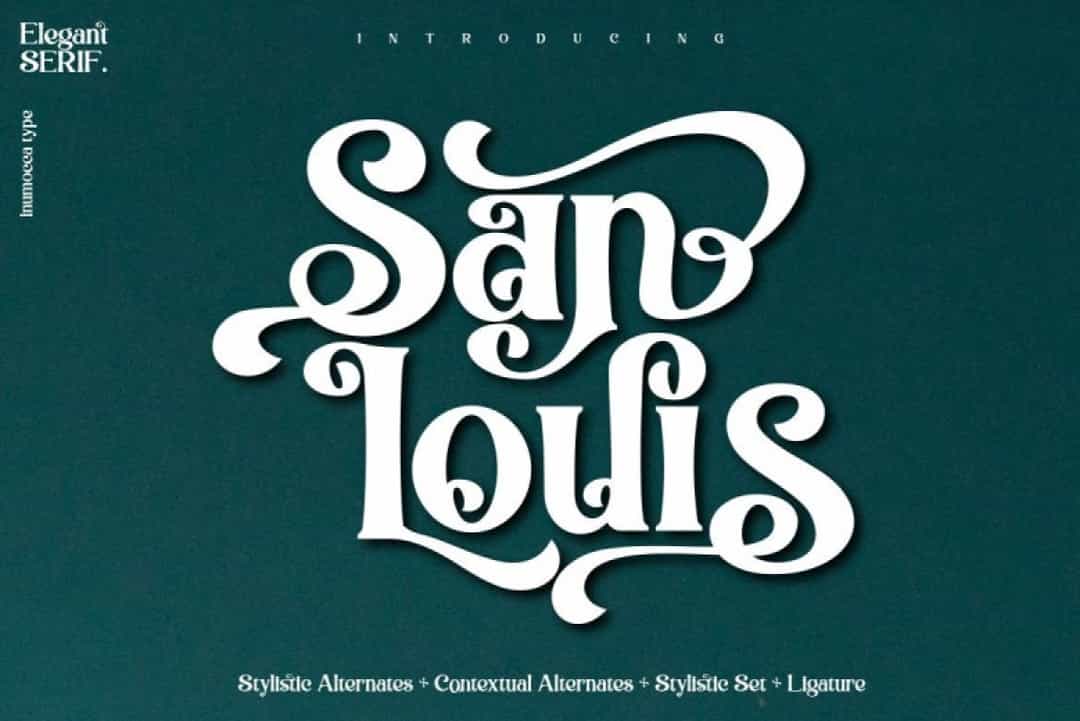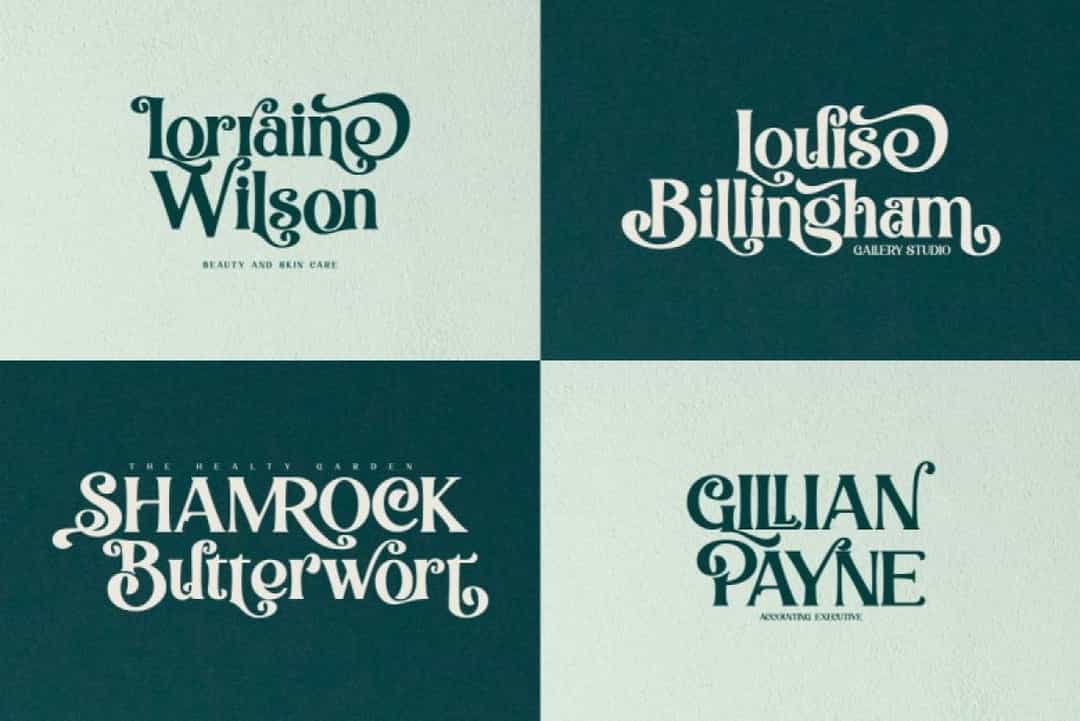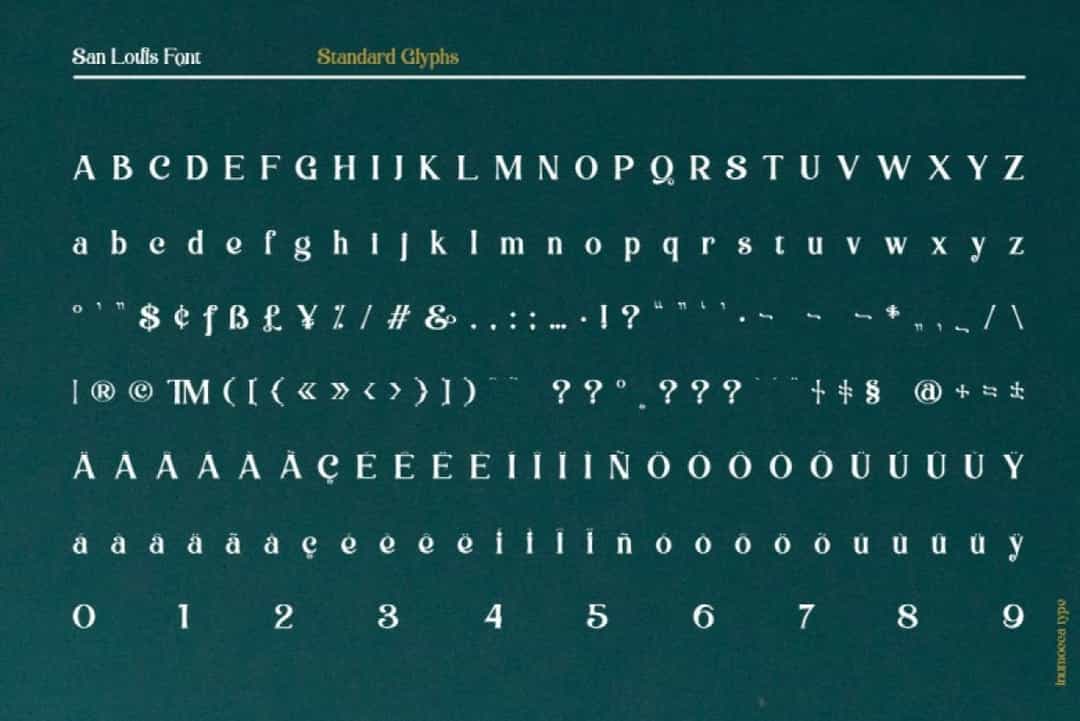
San Louis is an exquisite serif font that exudes modernism, classiness and glamour – perfect for modern projects such as letters, website interfaces, magazine branding, posters wedding invitations quotes logos lettering etc..